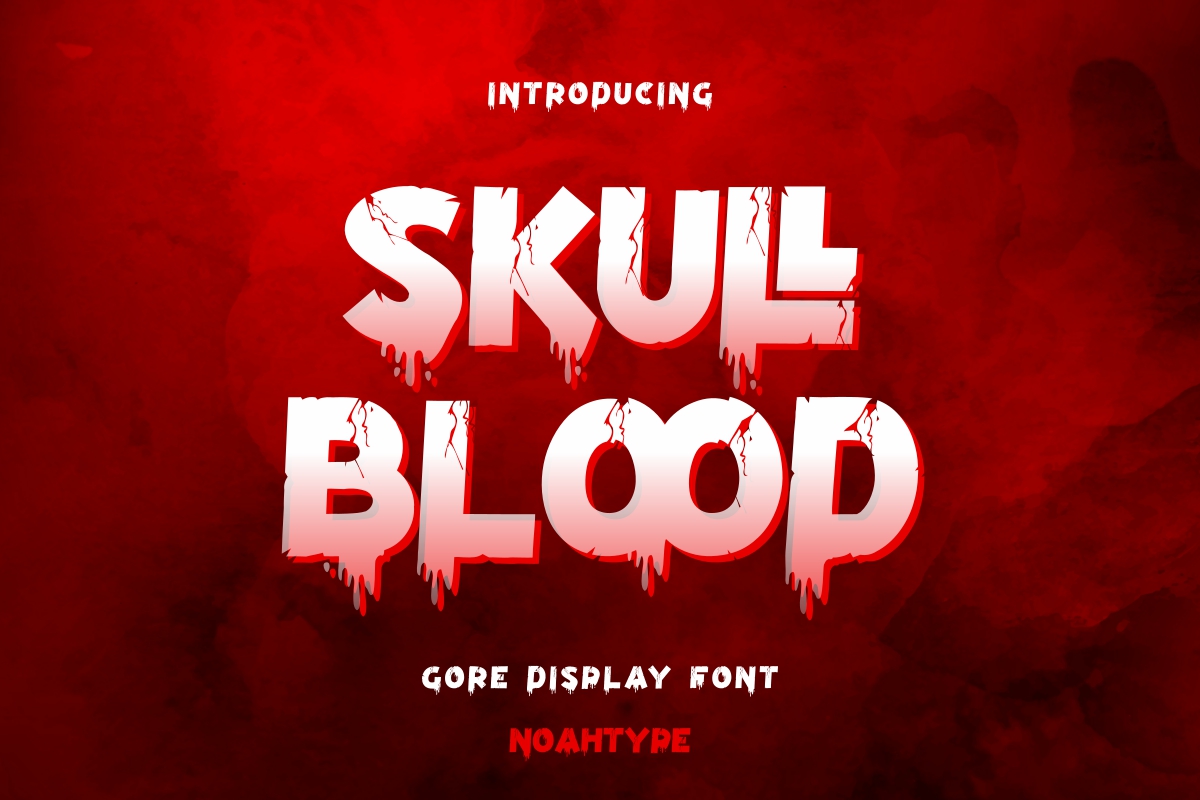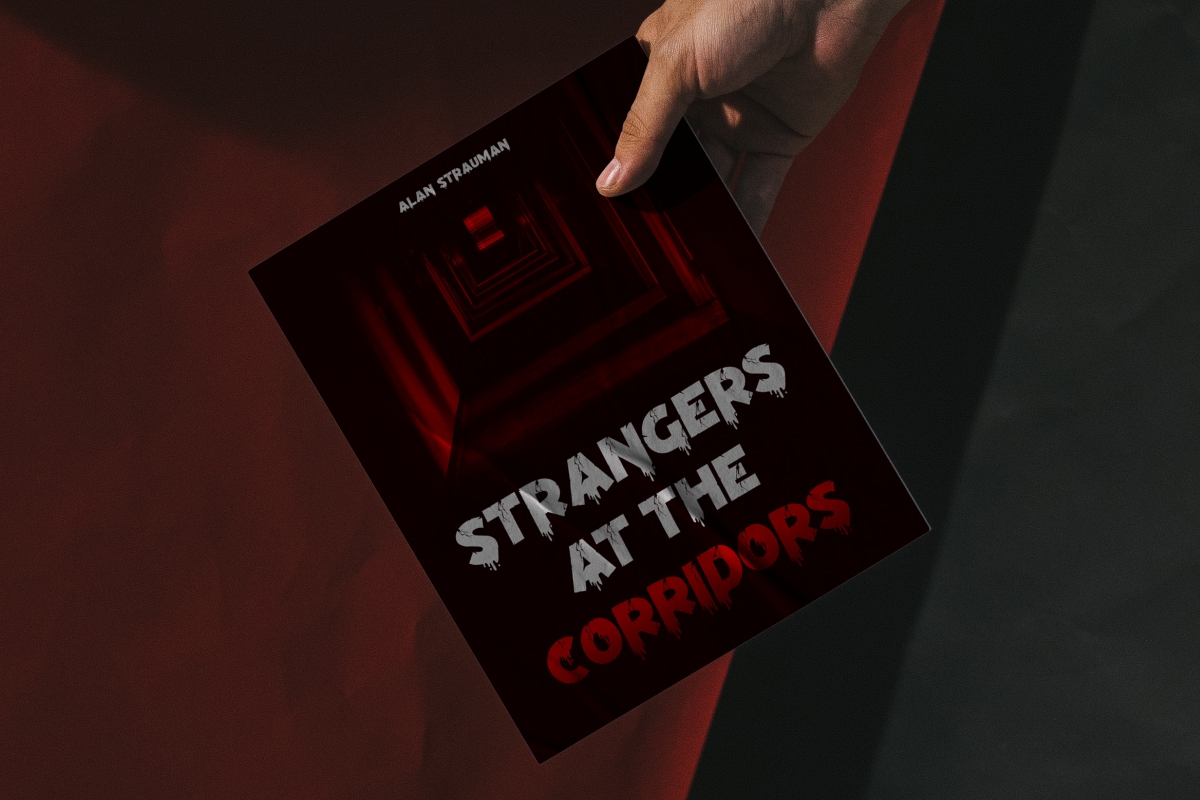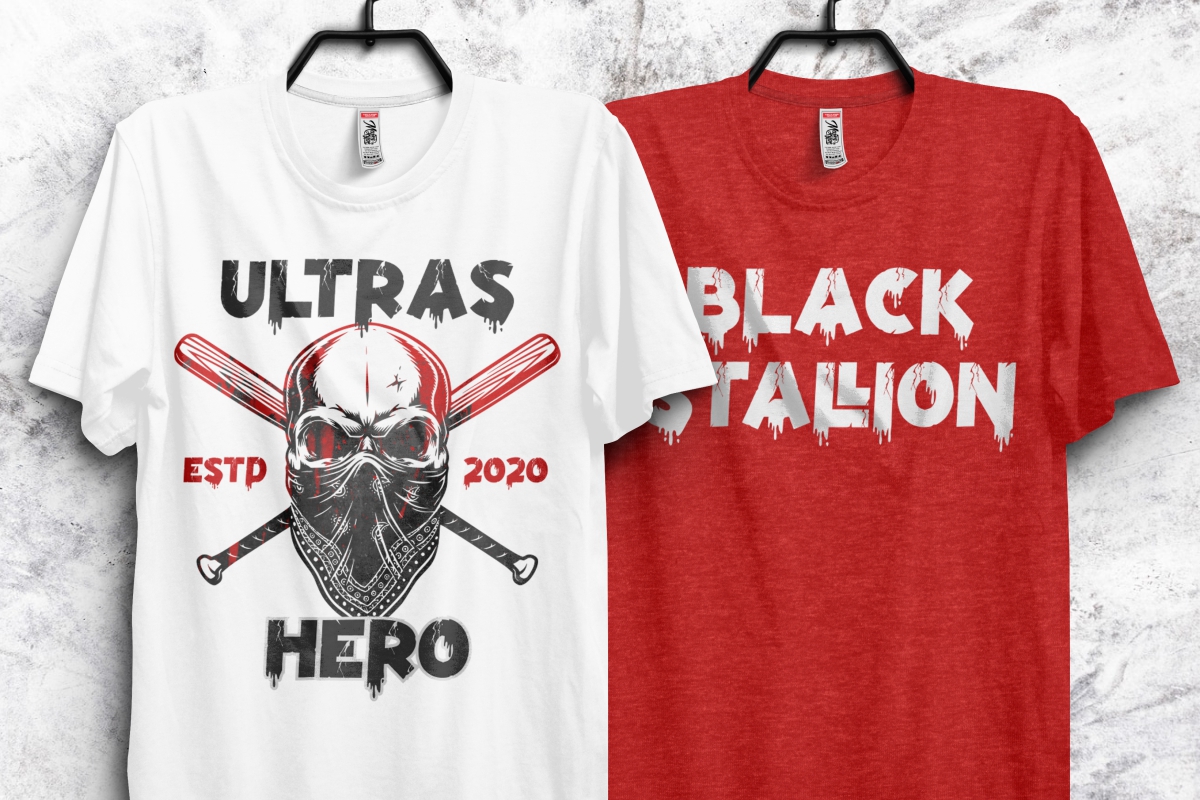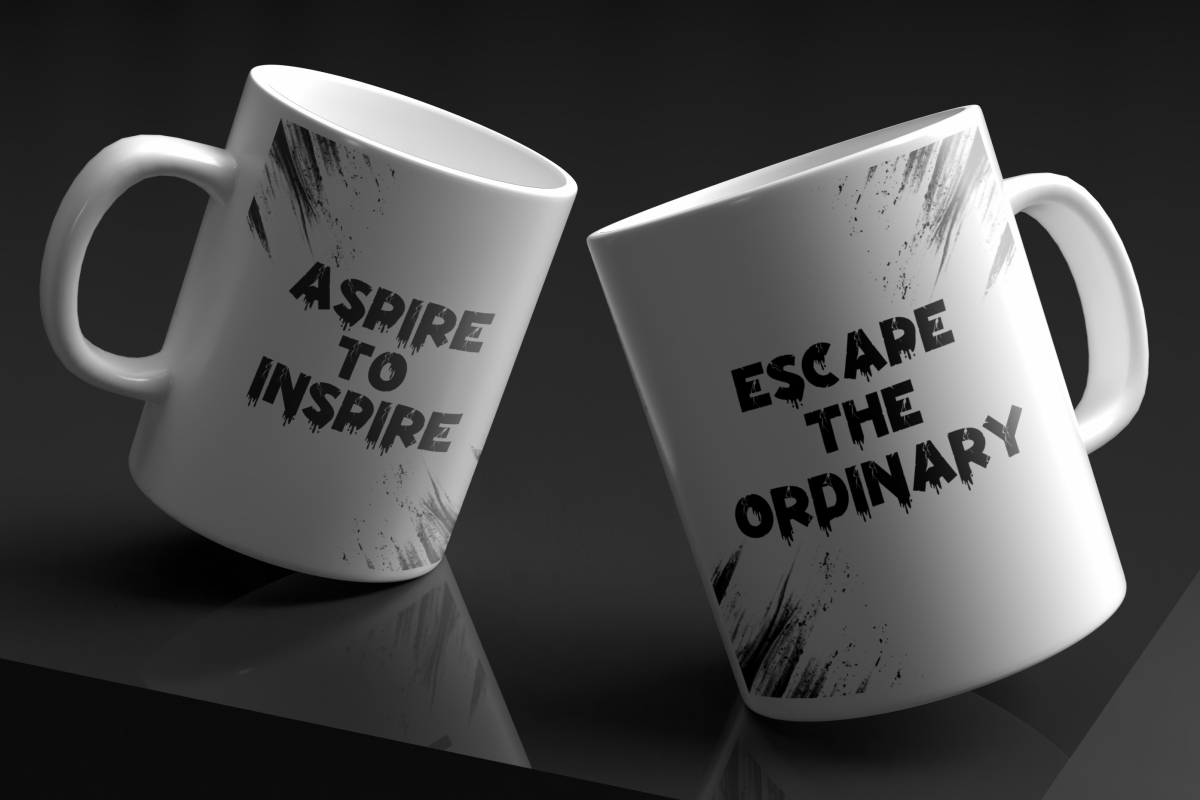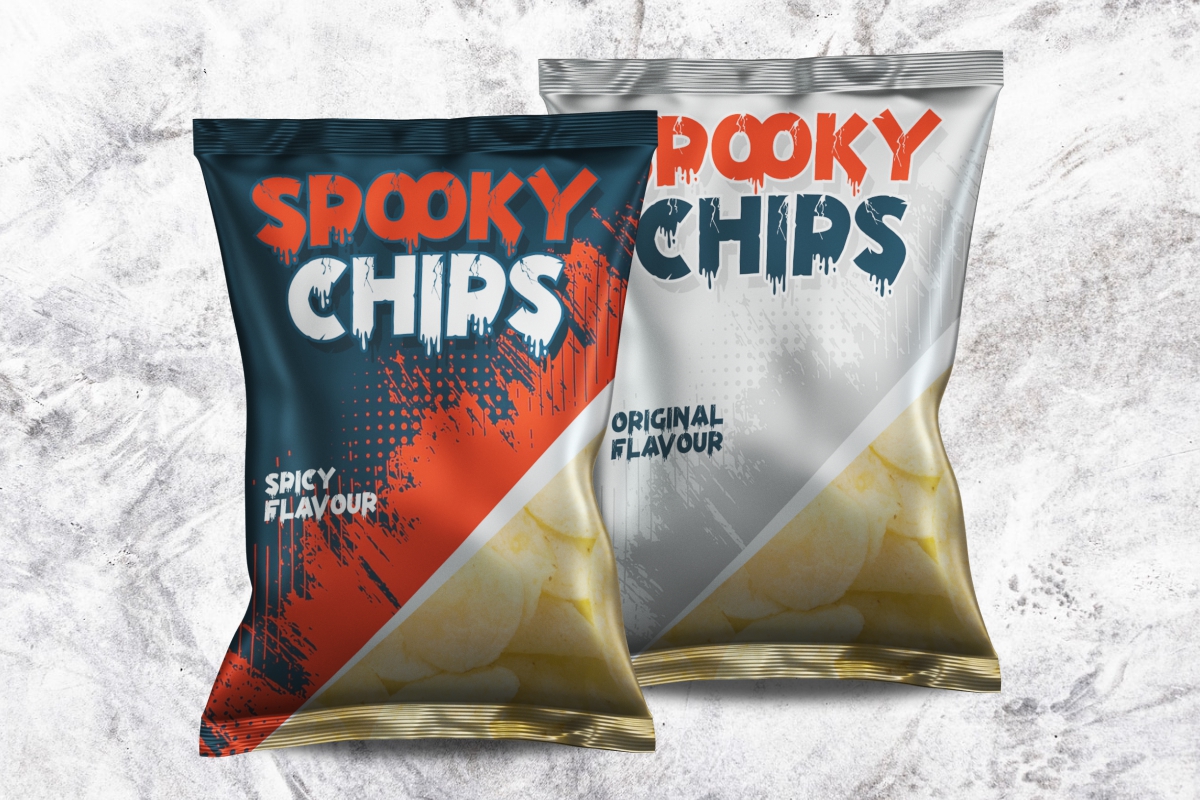
Skull Blood Font
Skull Blood Display Font is a horror scary display font with cracks and drops effects . The font will be perfect for movies, costume party, festival, fashion, writer, publishing, printing, animator, etc.
Skull Blood Font includes set of Uppercase Basic Characters, Numerals and Punctuation. Also it contains ligature character to support your amazing creations, such as party invitation, title, product packaging, label, brand logo, custom design, poster, web page, quote, and more!